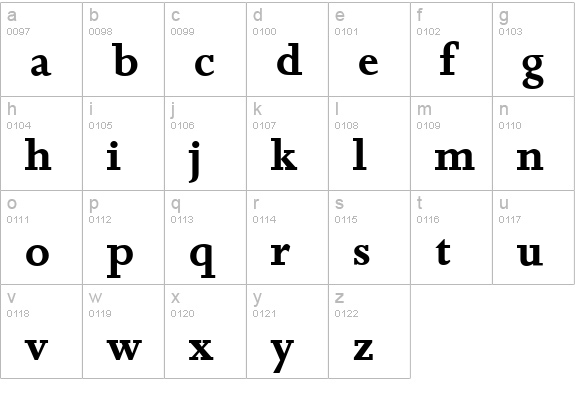
JessicaSerial-Bold is a strong, high-contrast variant in the JessicaSerial typeface family \xE2\x80\x94 well suited to headlines, attention-grabbing titles, and strong calls-to-action.
JessicaSerial-Bold is a bold and striking display font that demands attention. With its clean lines and modern aesthetic, this font is perfect for creating eye-catching headlines, posters, and branding materials. The strong and confident letterforms of JessicaSerial-Bold make it a versatile choice for a wide range of design projects. The best part? JessicaSerial-Bold is available for free download at FontsMarket.com. Now you can add this powerful font to your collection without breaking the bank. Don't miss out on the opportunity to enhance your designs with the bold and impactful style of JessicaSerial-Bold. Download it today and start making a statement with your typography.